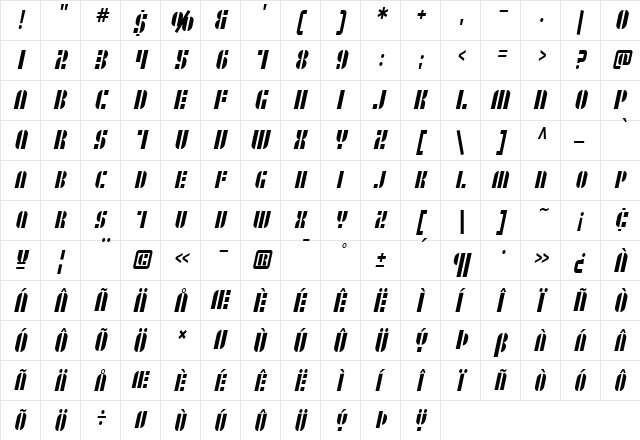
SF RetroSplice SC Condensed Regular
Design Context for SF RetroSplice SC Condensed Typeface
SF RetroSplice SC Condensed wears its vintage influences proudly, with letterforms that recall mid-century signage, classic packaging, and nostalgia-driven design.
Perfect for vintage-inspired branding, retro packaging, nostalgia campaigns, and period-accurate editorial design.
Font Pairing: Combine SF RetroSplice SC Condensed with a simple slab or neutral sans — period-accurate companions reinforce the vintage feel without competing for attention.
Pro Tip: Use SF RetroSplice SC Condensed for headlines and pull quotes rather than body copy — its personality is best appreciated in short, focused bursts.